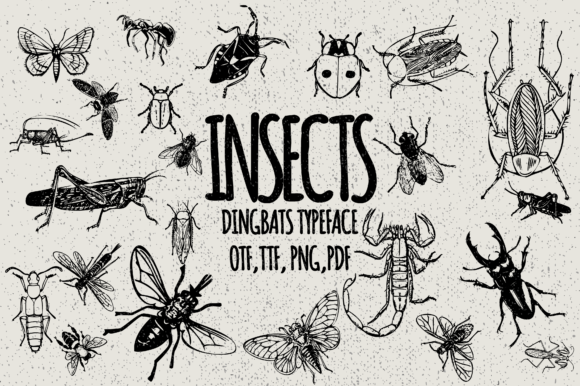
Embark on an Entomological Typographic Adventure with Insects Font: Your Key to Distinctive Designs
Insects Font, a remarkable dingbats font creation by Minimalistartstudio, invites you to delve into a world of intricate glyphs and unconventional expressions. This unique font family stands out as the ultimate choice for designers seeking to inject a touch of vintage charm and unparalleled creativity into their projects.
Beyond its aesthetic appeal, Insects Font offers a practical advantage: its comprehensive collection of 62 glyphs, accessible through capital letters, small letters, and numbers, empowers you to effortlessly generate captivating designs.
Visualize the possibilities as you effortlessly craft logos, branding elements, social media graphics, and even eye-catching website designs that resonate with a timeless aesthetic. Unleash your imagination and let Insects Font elevate your designs to new heights of originality.